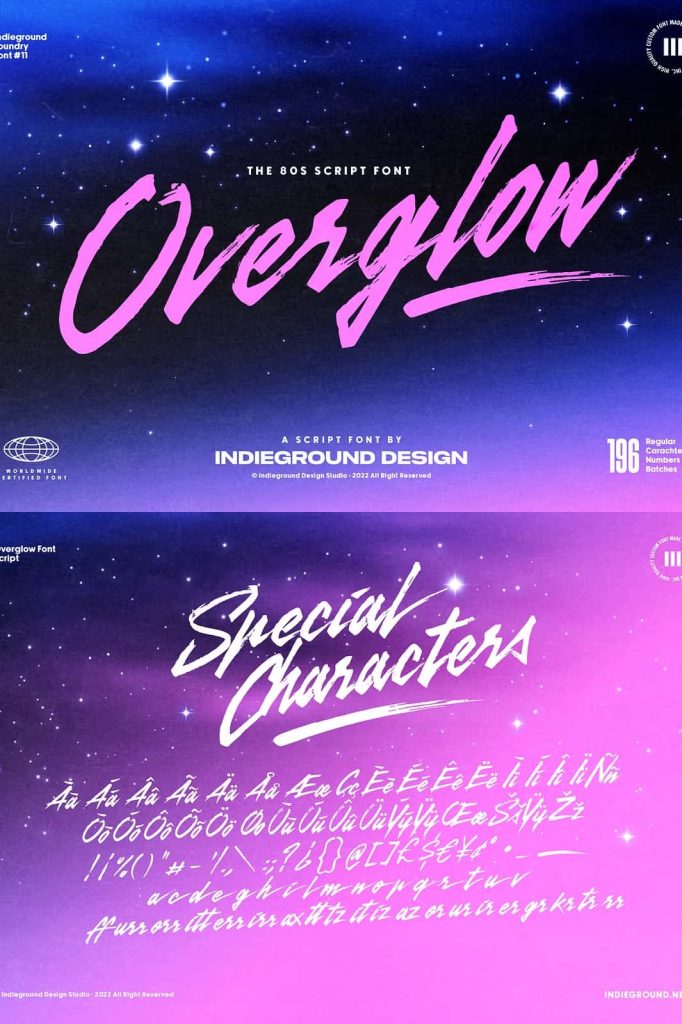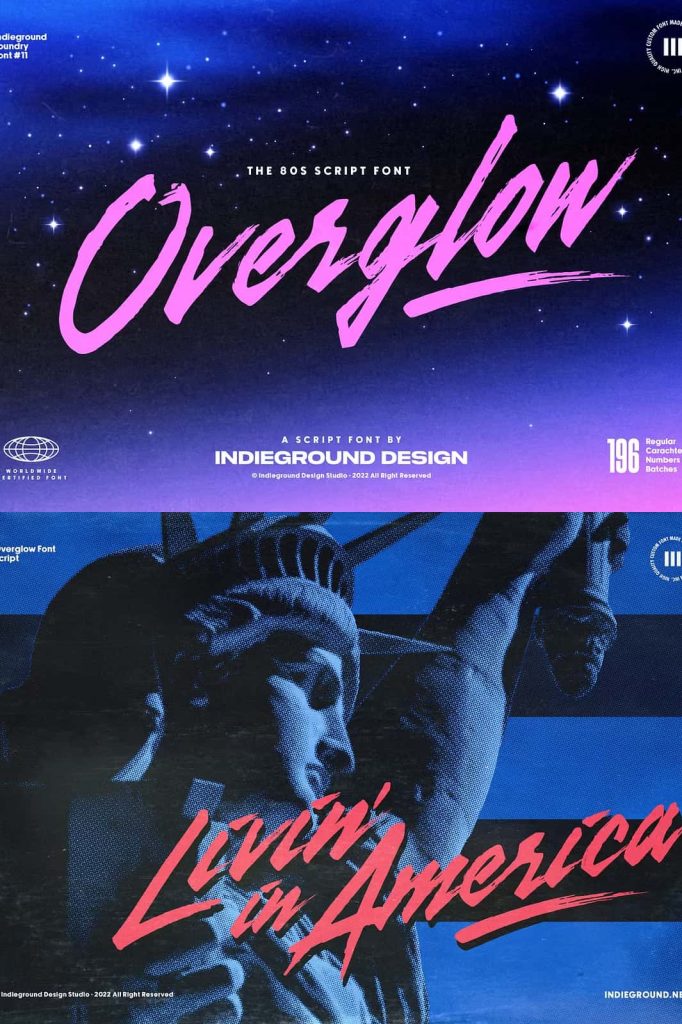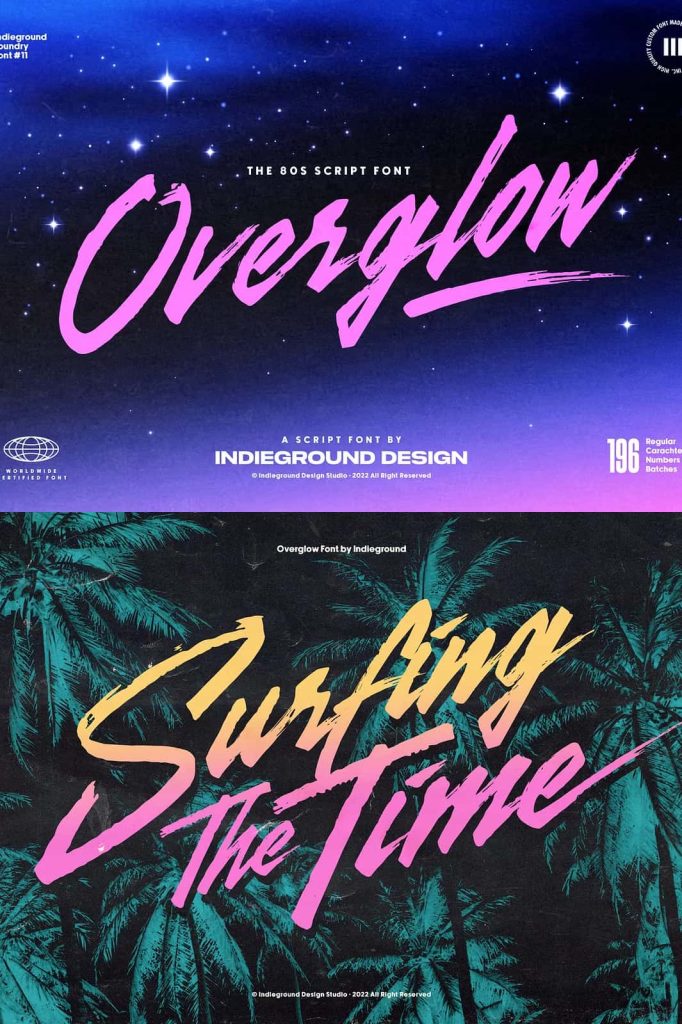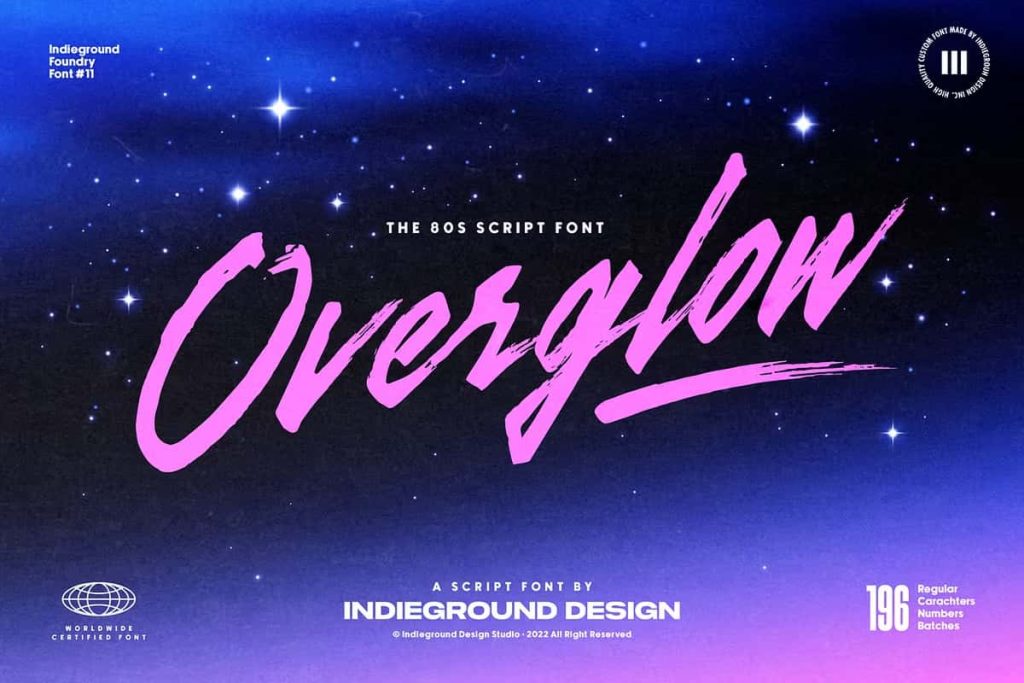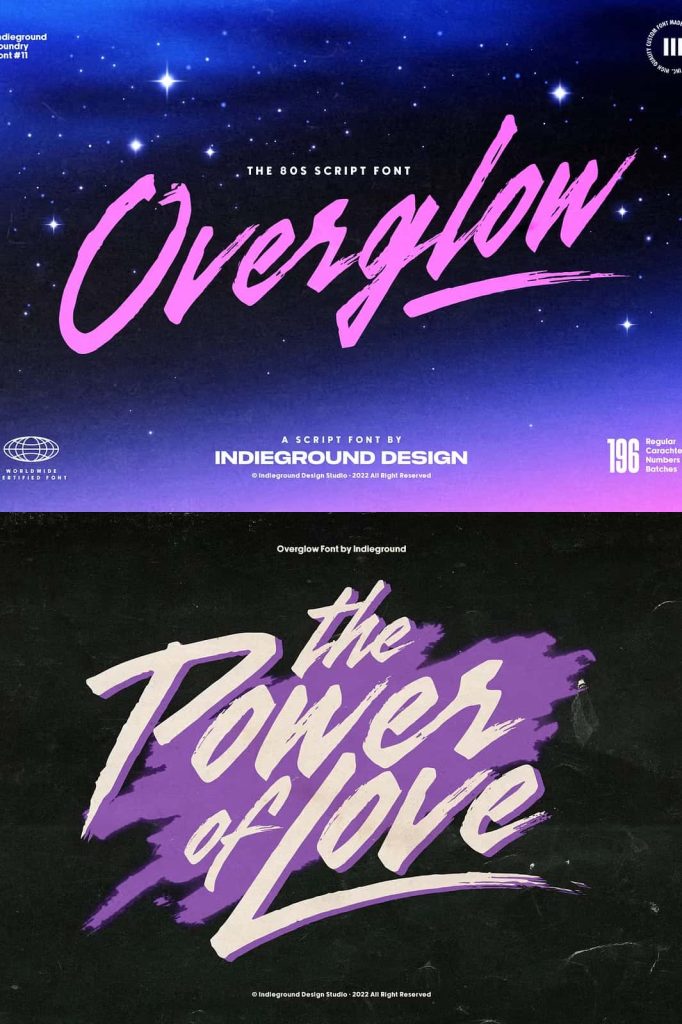
Overglow Font by Indieground: A Retro Calligraphic Typeface with Iconic 80s and 90s Energy
Overglow Font by Indieground is a striking calligraphic typeface infused with a bold retro taste and unmistakable visual personality. Designed in collaboration with the talented artist Alessandro Strickner, also known as Overglow, this font captures the expressive spirit of classic typography while channeling the vibrant atmosphere of the 1980s and 1990s. It stands as a creative tool for designers who want to push visual boundaries and deliver memorable, emotion-driven designs.
Every detail of Overglow reflects a passion for nostalgic aesthetics combined with modern typographic craftsmanship. The font actively communicates movement, rhythm, and artistic confidence, making it an essential asset for creatives working on bold and expressive visual projects.
Inspired by Iconic 80s and 90s Aesthetics
Overglow draws strong inspiration from the golden era of neon lights, analog synths, and futuristic optimism. Its flowing calligraphic forms and dynamic strokes reflect the visual language commonly associated with 80s and 90s design culture. This makes the font especially effective for projects that aim to recreate or reinterpret that era with authenticity and style.
The font naturally complements visual themes such as synthwave, vaporwave, and modern aesthetic compositions. Its retro calligraphic structure adds warmth and character, allowing designers to evoke nostalgia while still delivering fresh and contemporary visuals.
Perfect for Synthwave and Vaporwave Artwork
Overglow thrives in synthwave and vaporwave environments. Its expressive letterforms actively enhance neon palettes, futuristic gradients, and atmospheric backgrounds. When paired with glowing effects and bold color schemes, this retro calligraphic font transforms typography into a central visual element rather than just supporting text.
Designers working on album covers, music artwork, digital posters, or social media graphics can rely on Overglow to instantly establish mood and identity. The font does not simply decorate a design; it defines the visual tone and strengthens the emotional impact.
Ideal for Titles, Headlines, and Logotypes
Overglow is designed to perform exceptionally well in titles, headlines, and logotypes. Its strong calligraphic strokes command attention and guide the viewer’s eye across the composition. This makes it a powerful choice for branding projects that require a distinctive and recognizable typographic voice.
Logotypes created with Overglow feel artistic, confident, and memorable. The font allows brands to express creativity and individuality, especially in industries such as music, fashion, digital art, entertainment, and lifestyle branding. Its retro influence adds authenticity while maintaining versatility across different platforms.
Rich Features for Maximum Versatility
One of the defining strengths of Overglow is its extensive collection of features. The font includes a wide range of ligatures, underlines, and unique glyphs that allow designers to customize and refine their typography. These features enable creative freedom and encourage experimentation in layout and composition.
Thanks to these design elements, Overglow functions as a true multitasking font. Designers can create varied typographic styles using a single typeface, making it suitable for complex projects that demand flexibility and consistency.
A Multitasking Font for Creative Professionals
Overglow actively supports a wide range of creative applications. From digital artwork and branding to editorial design and promotional materials, the font adapts seamlessly to different contexts. Its calligraphic nature adds expressiveness, while its structured design ensures readability and balance.
This versatility allows designers to maintain a cohesive visual identity across multiple assets. Overglow works equally well in large-scale displays and focused design elements, ensuring reliable performance throughout the creative process.
Bring Retro Expression into Modern Design
Overglow Font by Indieground bridges the gap between nostalgic inspiration and modern design needs. By choosing this retro calligraphic font, designers gain access to a powerful typographic tool that elevates visual storytelling and strengthens artistic impact.